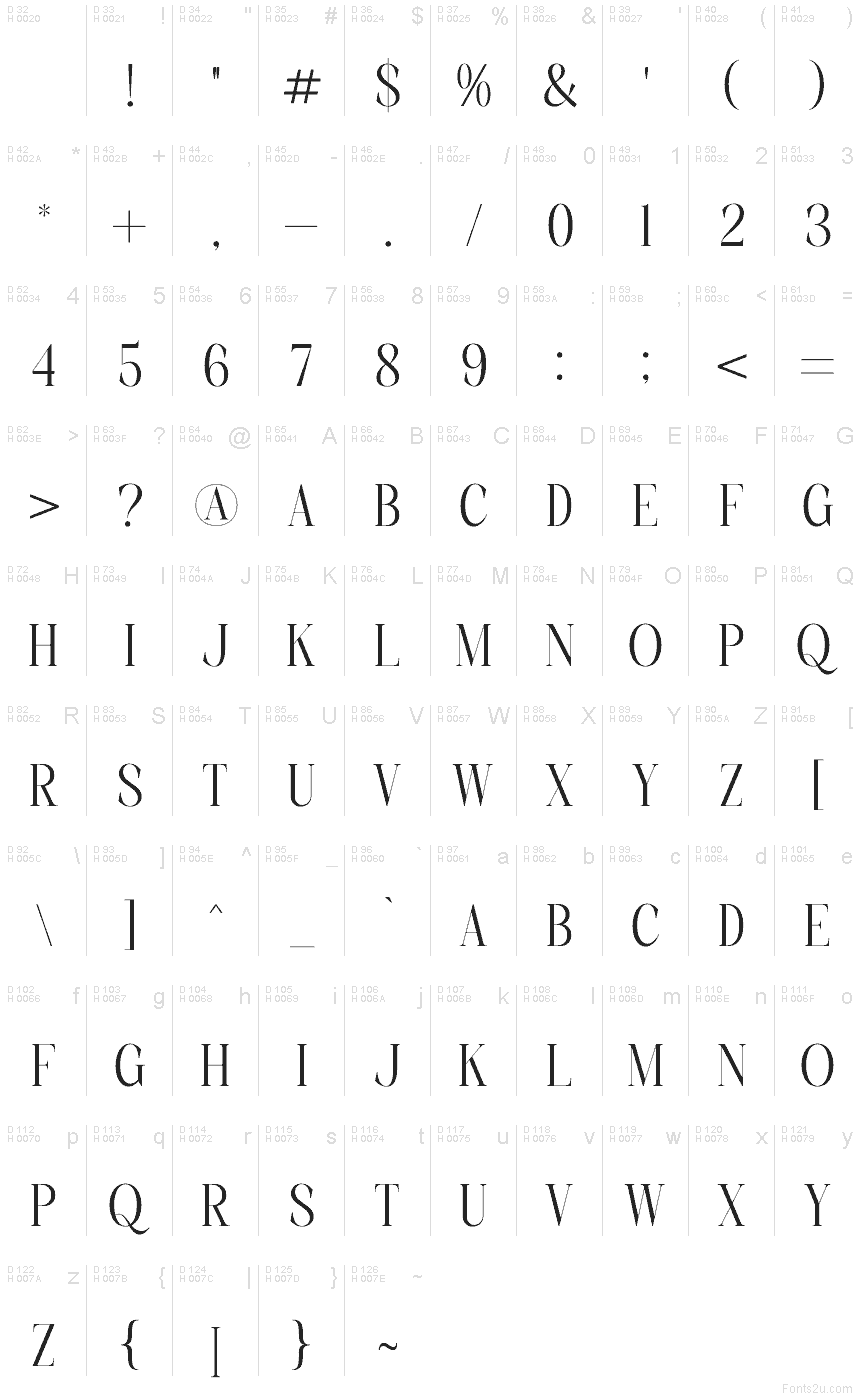
Charthe font by Storytype Studio is a free elegant serif typeface. Its tall, narrow forms and razor‑thin hairlines carve out a cool, polished rhythm, while sculpted curves add a soft gleam to the otherwise razor‑straight strokes. The letters feel luxe and editorial-crisp like fresh ink on glossy stock, with tight spacing that pulls the eye forward.
Using Charthe, headlines and wordmarks gain a refined snap that reads confident without shouting. This free font shines on luxury branding, fashion campaigns, beauty packaging, magazine covers, event invitations, and statement posters. Let larger sizes breathe with a touch of extra letter‑spacing; for supporting text, pair it with a simple sans to keep the focus on Charthe’s sleek contrast and poise.